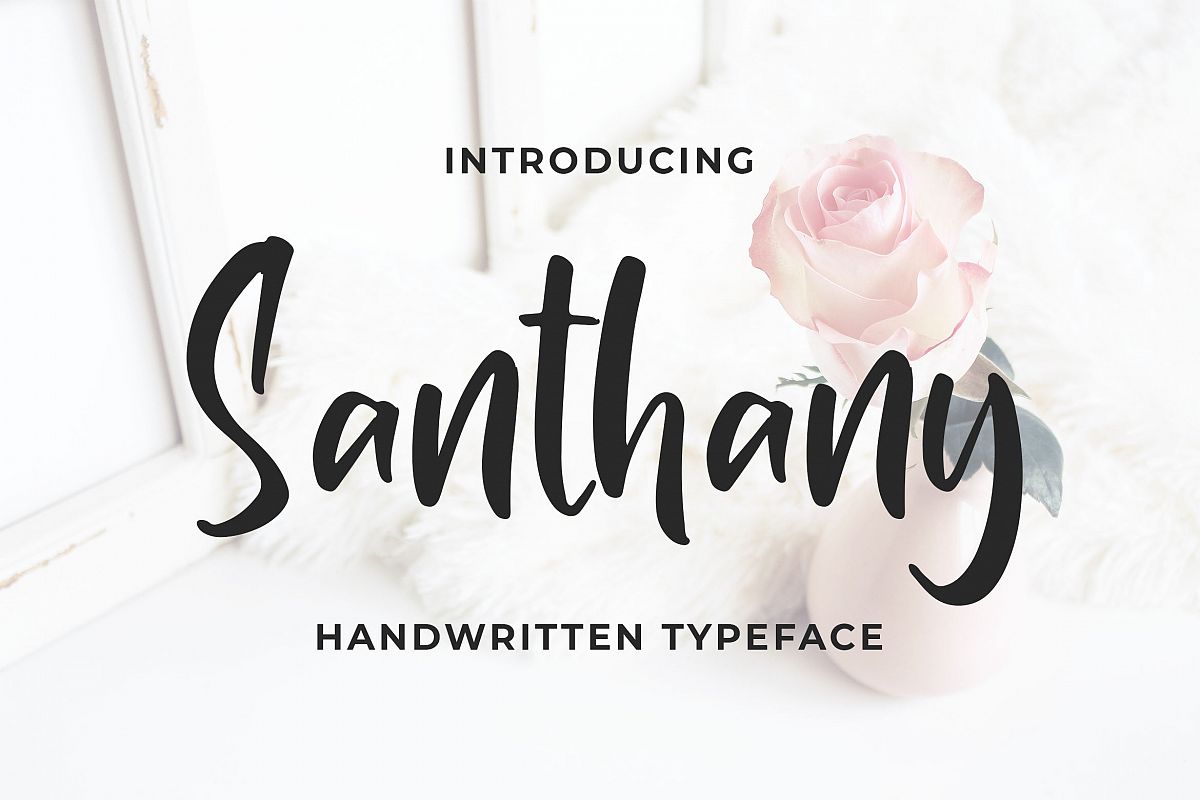
ntroducing of our new product the name Santhany Handwritten Typeface. Santhany made with markers into digital this font is a fun theme very good for signature, poster, branding, logotype etc
MULTILINGUAL ACCENT :ŽžŠŒšŸÀÁÂÃÄÅÆÇÈÉÊËÌÍÎÏÐŁÑÒÓÔÕÖØÙÚÛÜÝßàáâãäåæçèéêëìíîïłñòóôõöøùúûüýÿ
FEATURES :- Uppercase